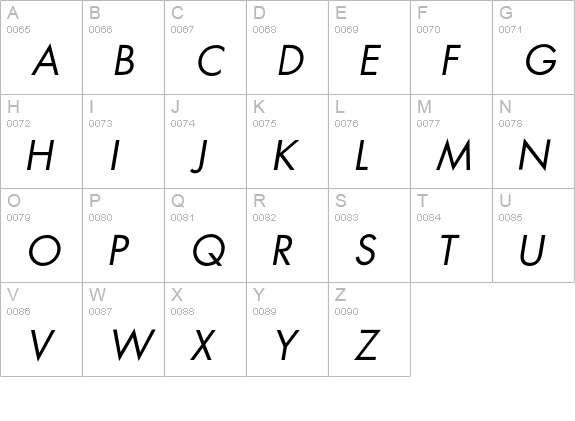
FuturaICG-BookOblique is a sleek and modern typeface that strikes the perfect balance between sophistication and approachability. Its slanted design adds a dynamic touch to any text, making it ideal for a wide range of design projects. With its clean lines and elegant curves, this font exudes a sense of professionalism and style. The versatility of FuturaICG-BookOblique makes it a great choice for both digital and print applications, whether you're creating a website, designing a poster, or crafting a logo. Its readability and distinctiveness ensure that your message will always stand out. Best of all, FuturaICG-BookOblique is available for free download at FontsMarket.com. Now you can elevate your designs with this sophisticated font without breaking the bank. Don't miss out on the opportunity to enhance your projects with the timeless appeal of FuturaICG-BookOblique.